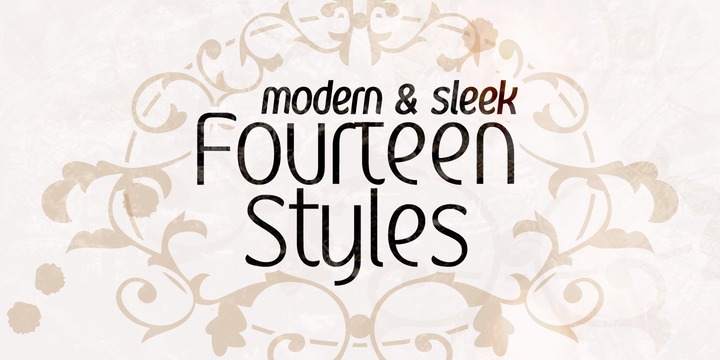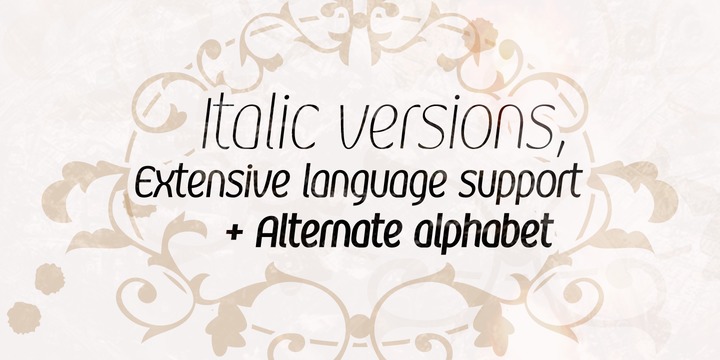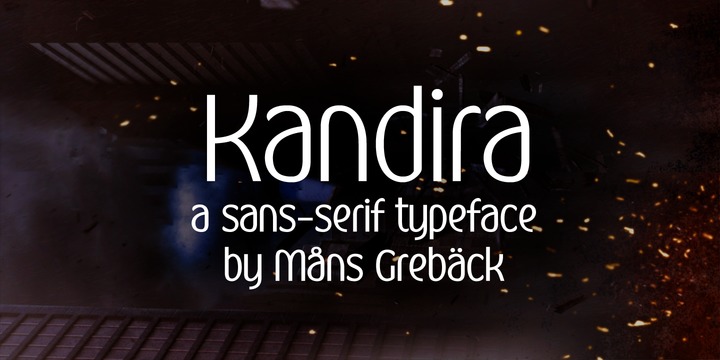
Kandira Font Family
Kandira is a sleek sans-serif typeface.
Drawn and created by Måns Grebäck in 2018, this is the perfect font for a modern-age company profile.